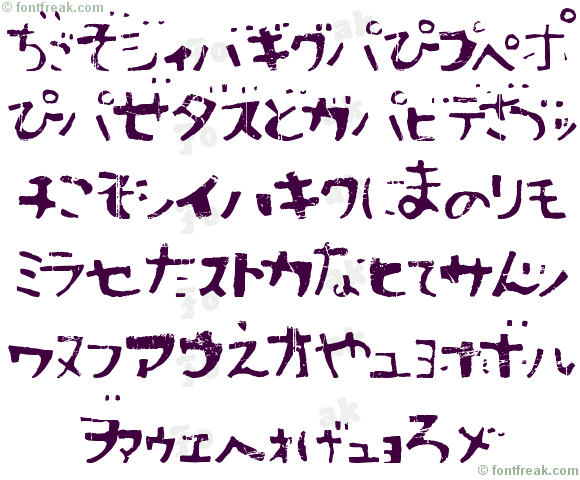
Sushitaro
About Sushitaro
Sushitaro, designed by Ryoichi Tsunekawa, is a captivating decorative font that effortlessly blends the essence of traditional Japanese aesthetics with a modern twist. This unique typeface showcases a distinct hand-drawn style, characterized by its uneven stroke weights and organic forms that evoke a sense of authenticity and warmth. The visual characteristics of Sushitaro include a playful contrast between thick and thin lines, giving it a dynamic appearance. The spacing is thoughtfully crafted, allowing for both legibility and artistic flair, while the slightly irregular edges lend a charming, handcrafted feel.
This font is perfect for a variety of creative applications. It shines in contexts such as restaurant menus, where its whimsical nature can enhance the dining experience. Additionally, Sushitaro is an excellent choice for food-related branding, particularly for sushi restaurants or culinary events. Its distinctive style makes it suitable for wedding invitations, adding a touch of elegance and creativity to the special day. Movie posters that aim for a unique and artistic look can also benefit from the font’s eye-catching design, making it stand out in a crowded marketplace. Furthermore, content creators and graphic designers will find Sushitaro an appealing option for social media graphics, helping to convey personality and flair in promotional materials.
Targeting graphic designers, small business owners, and content creators, Sushitaro stands out due to its ability to bridge cultural aesthetics with contemporary design trends. Its freeware license allows for broad accessibility, making it a valuable resource for those seeking to elevate their projects without breaking the bank. For anyone looking to infuse creativity into their work, the Sushitaro font free download offers a delightful opportunity to enhance visual storytelling with a unique touch.